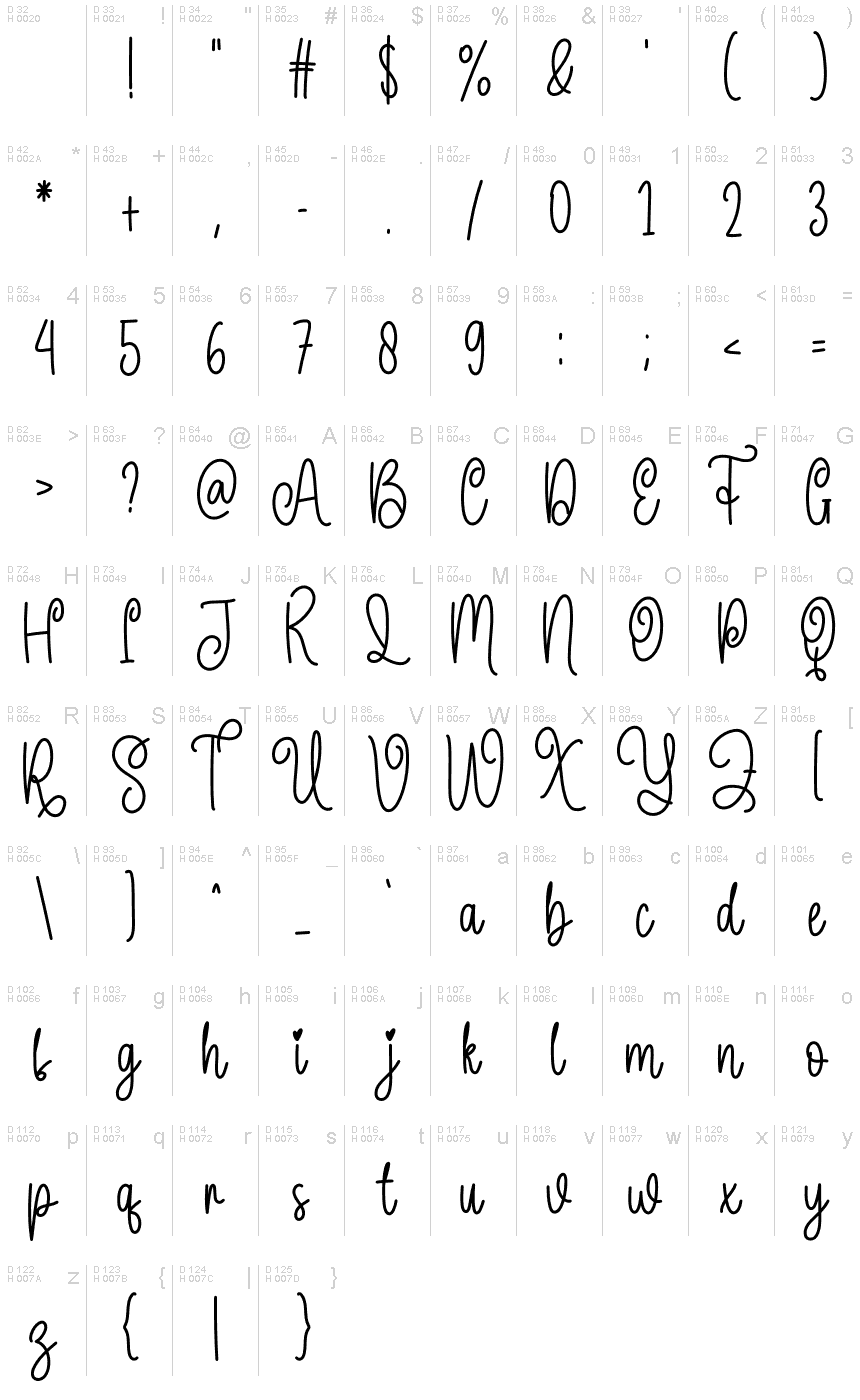
Thin
Scratchones presents Thin, a captivating font that exudes elegance and sophistication. With its delicate and graceful curves, this curly calligraphy font adds a touch of refinement to any design project.
The light weight of the font creates an airy and ethereal aesthetic, perfect for wedding invitations, feminine branding, or high-end fashion editorials. The extra-condensed width ensures maximum impact in limited space, making it ideal for sleek magazine layouts or minimalist website headers.
Bring your designs to life with Thin - a font that epitomizes grace and style.
The latest style letters are perfect for wall displays, wedding invitations, social media post logos, advertisements, product packaging, product designs, labels, photography, watermarks, invitations, stationery, and any project that requires taste handwriting.
The light weight of the font creates an airy and ethereal aesthetic, perfect for wedding invitations, feminine branding, or high-end fashion editorials. The extra-condensed width ensures maximum impact in limited space, making it ideal for sleek magazine layouts or minimalist website headers.
Bring your designs to life with Thin - a font that epitomizes grace and style.
The latest style letters are perfect for wall displays, wedding invitations, social media post logos, advertisements, product packaging, product designs, labels, photography, watermarks, invitations, stationery, and any project that requires taste handwriting.